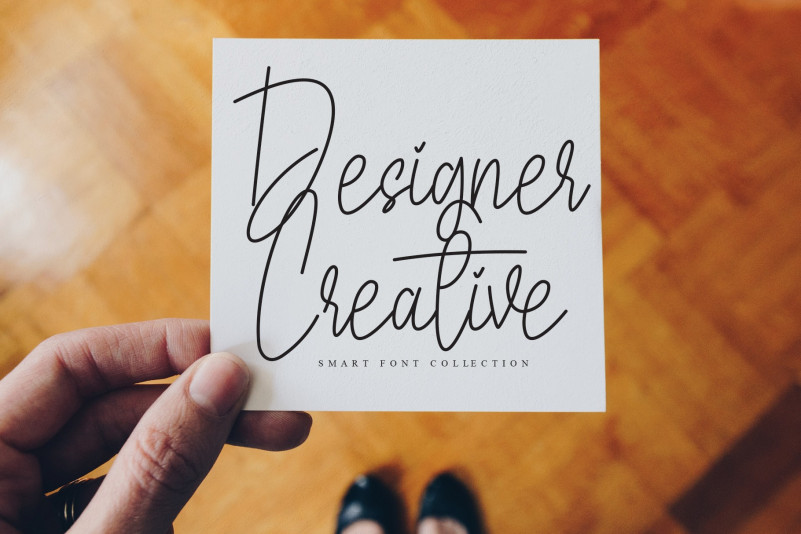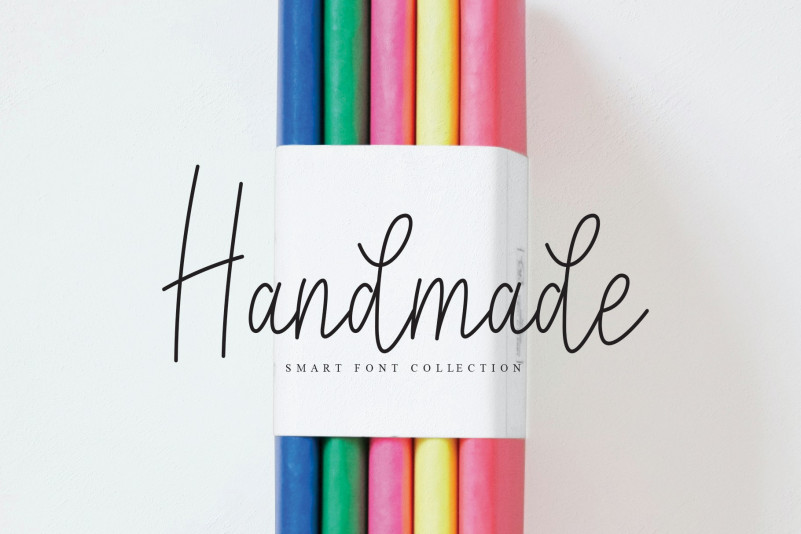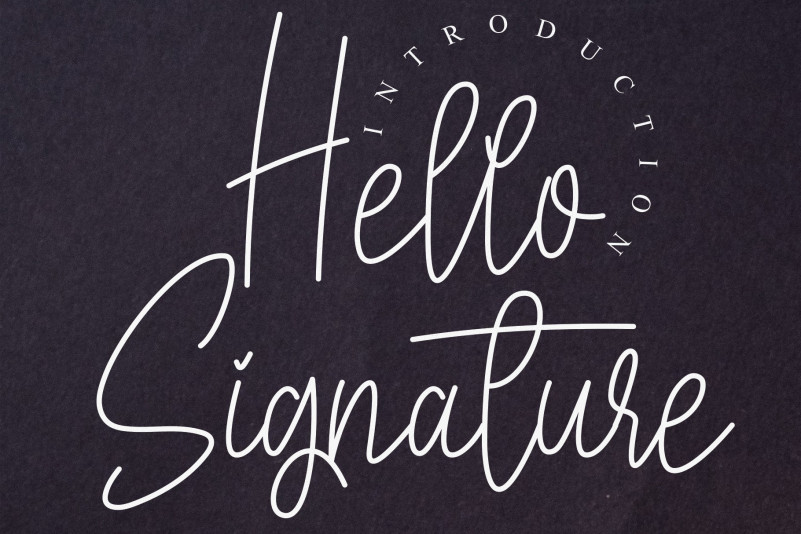
Hello Signature Script Font
the latest style letters are perfect for wall displays, wedding invitations, social media post logos,
advertisements, product packaging, product designs, labels, photography, watermarks, invitations, stationery,
and any project that requires taste handwriting.